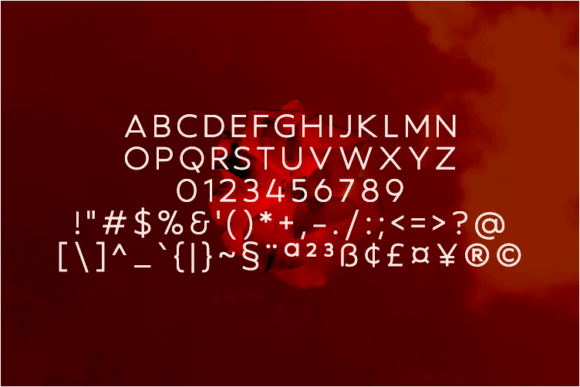
Introduction to Selfive Font
Have you ever been working on a creative project, pouring your heart and soul into it, only to be held back by the perfect font? That’s exactly what happened to me when I was designing a logo for a friend’s new business. I knew I wanted something modern, yet elegant, but nothing seemed to fit quite right. That was until I stumbled upon the Selfive Font – a beautiful and unique sans serif font that brought my design to life.
As a designer, I know how valuable a great font can be. It can make or break a design, and the right one can elevate your work to the next level. That’s why I’m excited to share with you the Selfive Font, a stunning design resource that’s perfect for any creative project. With its clean lines and modern aesthetic, this font is sure to be a hit with designers of all levels.
Key Features of Selfive Font
- High-quality, professional font design ideal for creative projects and designs.
- Includes a range of characters and glyphs, making it a versatile design resource for various creative needs.
Honest Review: Selfive Font
I recently stumbled upon the Selfive Font, and I must say it’s been a game-changer for my creative projects. As a designer, I’m always on the lookout for high-quality design resources that can elevate my work. The Selfive Font delivers.
- ✨ High-quality typography: The font is crisp, clean, and perfect for use in a variety of design contexts.
- ✨ Transparent background: This feature allows for seamless integration with transparent backgrounds, making it ideal for creative projects that require a touch of elegance.
- ⚠️ Limited character set: The font only includes a limited character set, which may not be suitable for designers working on complex projects that require a wide range of characters.
- ⚠️ Not suitable for small text: The font’s high quality comes at the cost of legibility at smaller font sizes, which can make it difficult to read.
Overall, I’m impressed with the Selfive Font’s potential, but I’d caution designers to carefully consider their project’s requirements before committing to this design resource.
Tips for Getting the Most Out of Selfive Font
Use the Selfive Font in combination with a transparent background to create a unique design effect. Experiment with different font sizes and styles to add emphasis to your creative project.
The Selfive Font is ideal for use in digital design projects, such as social media graphics, presentations, and websites. Its high quality and versatility make it a great design resource for creatives.